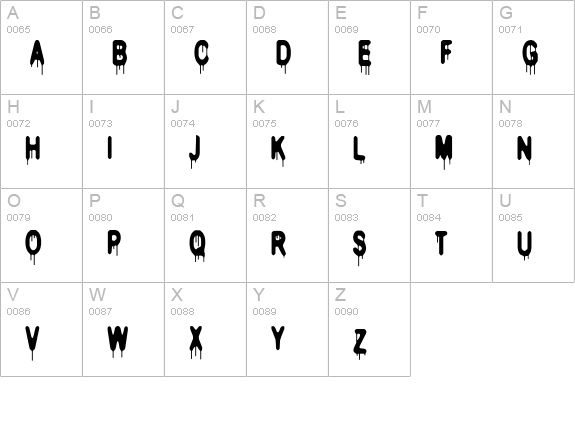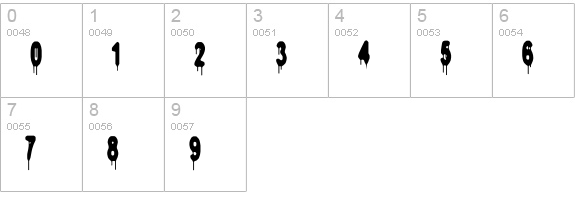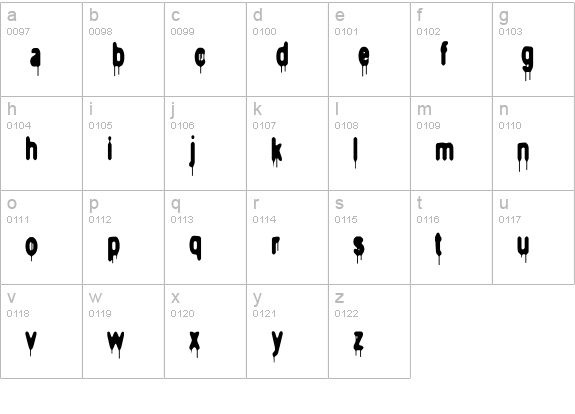
Introducing Head-injuries font, a captivating and eye-catching typeface that will leave a lasting impression on any design project. This unique font is designed to mimic the jagged edges and boldness often associated with head injuries, creating a visually striking display that demands attention. With its distinctive letterforms and edgy aesthetic, Head-injuries font adds a touch of grit and rawness to any design. Whether you're working on a poster, logo, or website, this font will effortlessly elevate your creative vision and make a bold statement. One of the best parts about Head-injuries font is that it is freely available to download at FontsMarket.com. This means that you can easily access and use this remarkable typeface without any limitations or restrictions. Whether you're a professional designer or a hobbyist, this font offers endless possibilities for your creative endeavors. With its versatile nature and distinct personality, Head-injuries font is perfect for a wide range of design projects. Its bold and impactful presence will captivate viewers and leave a lasting impression. So why wait? Download Head-injuries font from FontsMarket.com today and unleash the power of this incredible typeface in your next design masterpiece. Let your creativity soar with this free and captivating font.